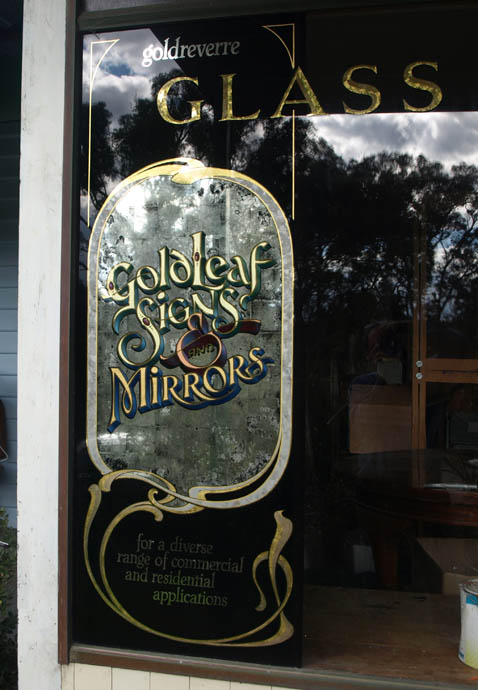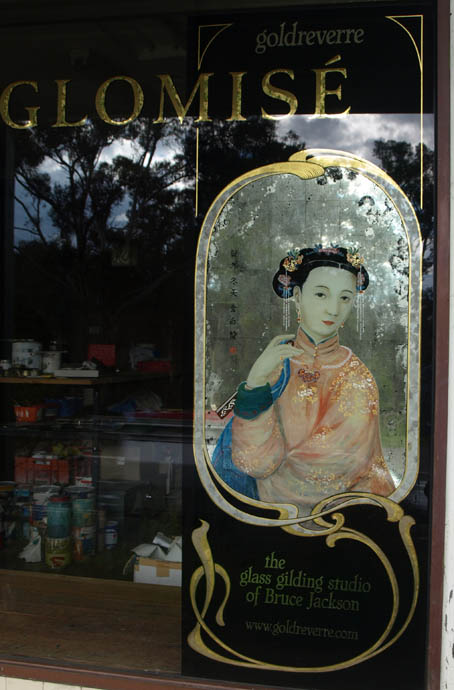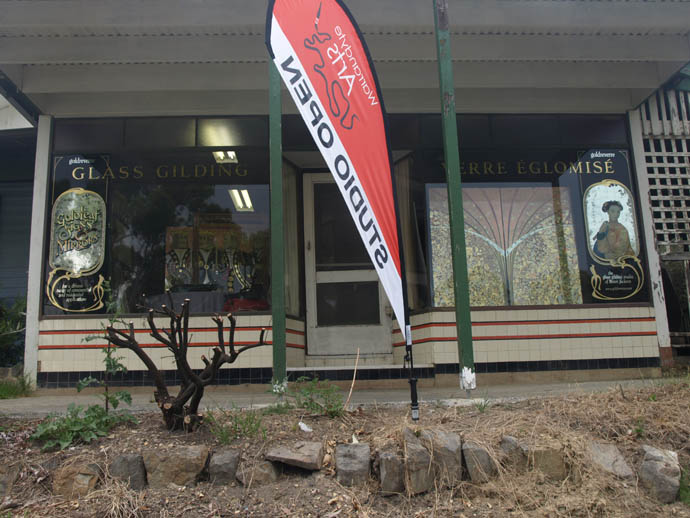
My studio's windows and a website update with new photos
Last year, I finally did some more work on my own shop windows...Just thought I'd post a couple of pics of my studio for your enjoyment...
As always I am very impressed with your work. Thanks so much for sharing the photos of your store front.Is the portraite of the women backpainted ?
Absolutely beautiful work, Bruce. Stunning.
I've long admired your work but this updated site does a terrific job of showcasing it. Well organized, plenty of helpful content, great photos. It deserves plenty of inbound links.
You've raised the bar for us!
The antiqueing around the silverleaf mirror and the Chinese lady look very good.
Still in the learning phase ;-)
I really do enjoy wandering about the artworks on your web site.
That is a magnificent reproduction of Ryser's Chinese Lady but for me, my favourite window is Piccadilly Circus, it reminds me of one of the Italy window photos Dave Smith shared a while back.
I do like the kitchen back splashes you do as well and my current favourite is the antique look silver leaf backing with Chinese calligraphy.
Well picked Anthony, I wondered if people would recognize that painting. Yes Roderick, it's hand-painted, and as Anthony pointed out, it is copied from a painting from around 1770 that was used on the cover of Ryser's catalogue of reverse paintings on glass, a book that I highly recommend.
I've always loved that picture. The original is so elegant and possibly one of the finest and most delicately painted portraits I've seen. I can't match the mastery of it, but this one on my shop window still does a nice job of showing my work to the public so that they get some idea of what "verre églomisé" means.
Warrandyte has a fairly high number of artist's studios and galleries, so we've joined together and set up an artist's trail in the area, hence the "studio open" flag flying out the front. It was also one of the catalysts for doing the signs and making the shop look a bit more inviting. I wanted to get some of that "Paris boulangerie" look of the black side panels with a bit of art nouveau character...My place is built sometime in the 1920's so that look fits nicely.
Piccadilly circus!....that is one of my earliest pieces. Fortunately, it's still surviving...I remember it took me about three days to scratch all those lines...hahaha. I don't do much gold engraving now. It takes a looooong time to get that look...Jonas Zeuner must have been very patient man to be so focused on such fine detailing.
Wow, that´s absolutely stunning! Would love to visit a store like that some day, just watching a master at work.. but I would not be able to keep my mouth shut and probably distract you :-)
Stunning as always and hard as heck to photo.